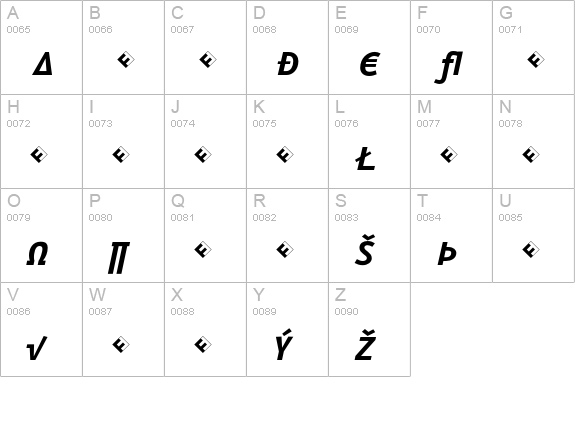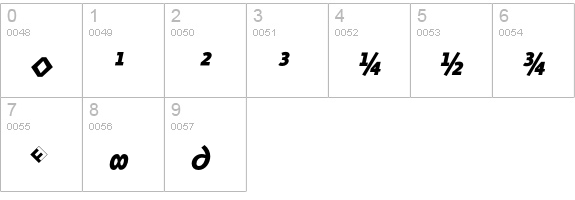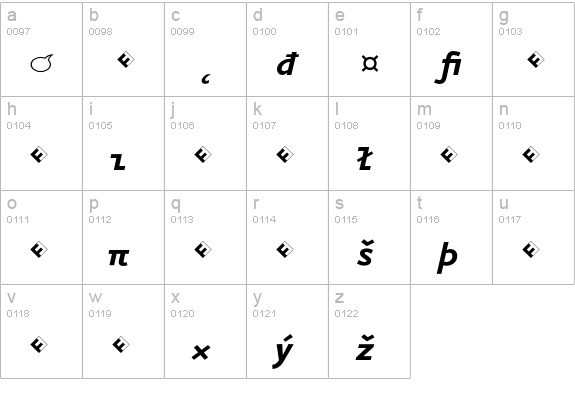
Eureka Mono Exp Bold Italic is a strong, high-contrast, italic variant in the Eureka typeface family \xE2\x80\x94 well suited to headlines, attention-grabbing titles, and strong calls-to-action.
Eureka Mono Exp Bold Italic is a striking and modern typeface that commands attention with its bold and dynamic design. This font exudes confidence and sophistication, making it perfect for headlines, logos, and branding projects that require a strong visual impact. The slanted italic style adds a touch of elegance and flair to any text, making it stand out from the crowd. Best of all, Eureka Mono Exp Bold Italic is available for free download at FontsMarket.com. This means you can easily access this high-quality font without any cost, making it a valuable addition to your design toolkit. Whether you're a graphic designer, marketer, or creative professional, this font is sure to elevate your projects and help you make a bold statement. Download Eureka Mono Exp Bold Italic today and unleash your creativity with this versatile and eye-catching typeface.